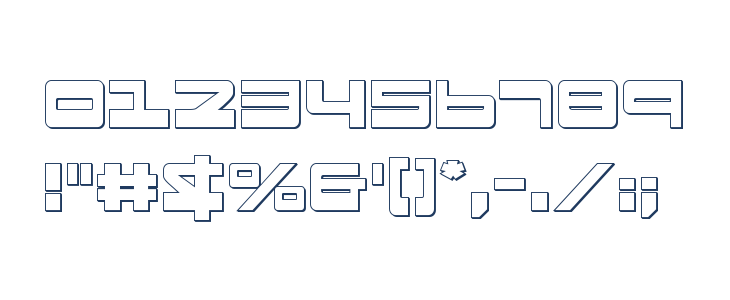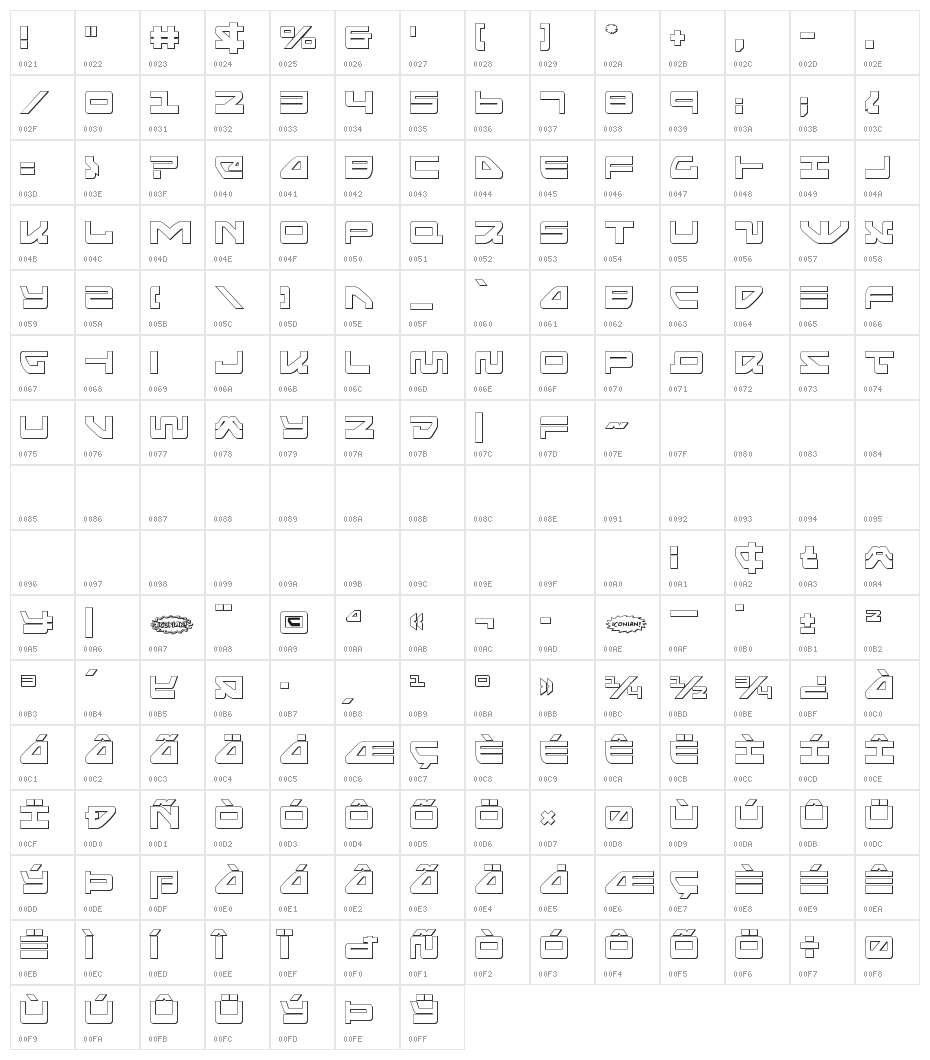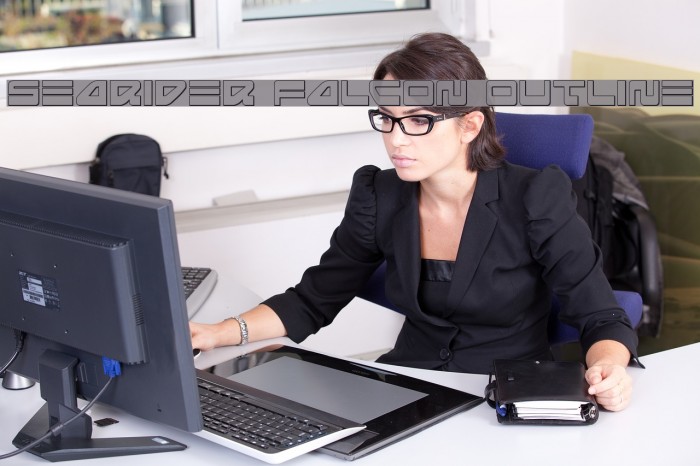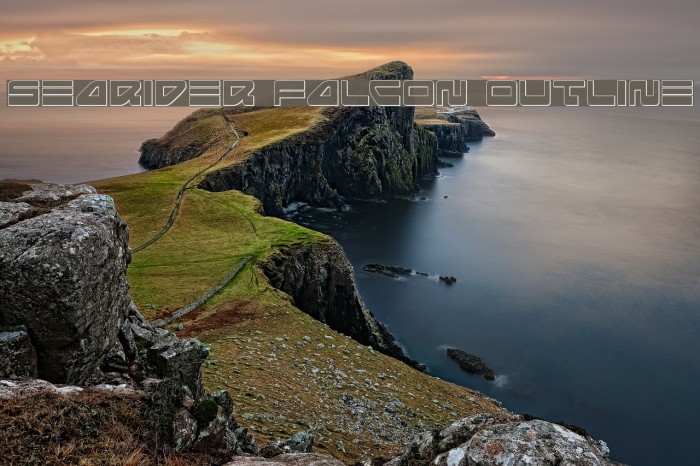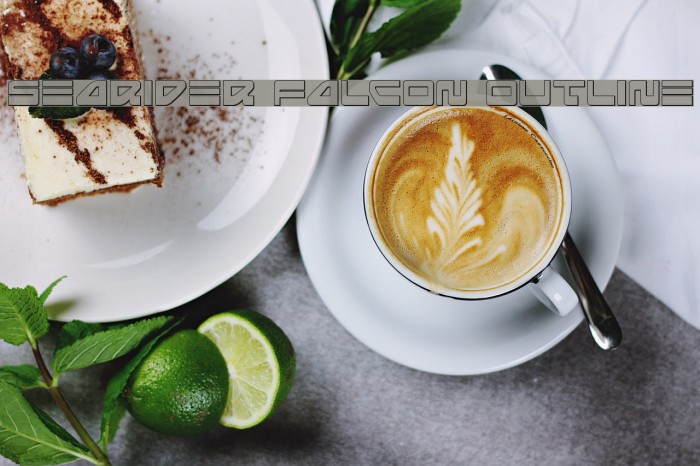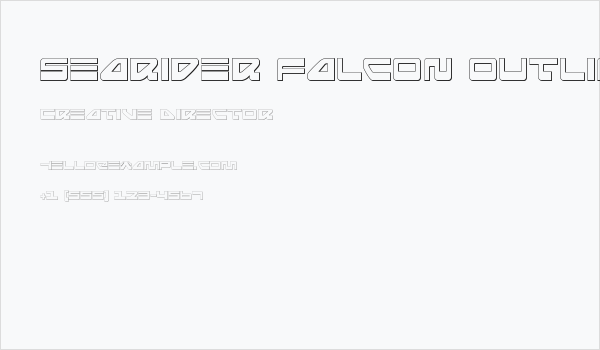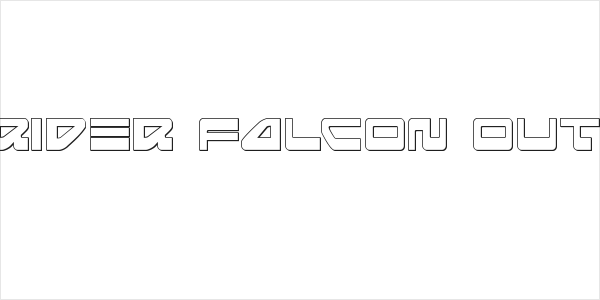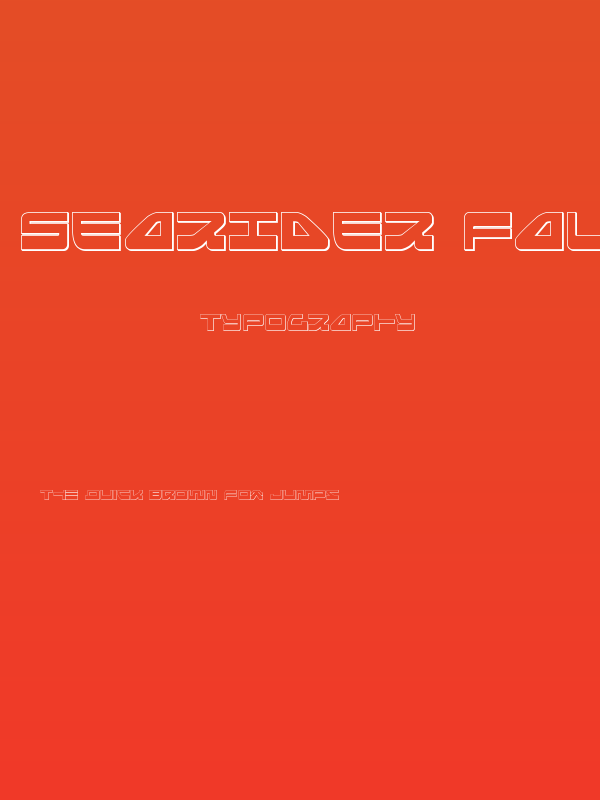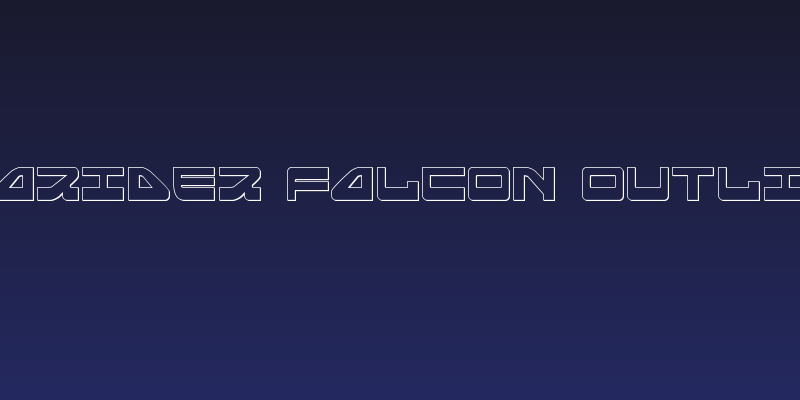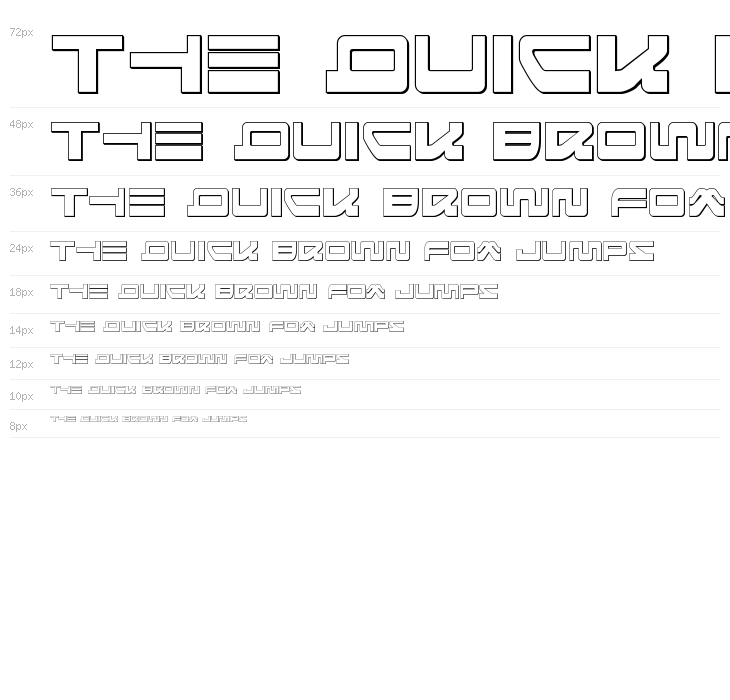
Searider Falcon Outline Font
Searider Falcon Outline Description
This font features a futuristic and geometric design with an outline style that emphasizes its bold, angular shapes. Each character is crafted with precision, showcasing a unique blend of sharp edges and smooth curves. The uppercase and lowercase letters maintain a consistent style, providing a cohesive look across the alphabet. Numbers and special characters follow the same design principles, ensuring uniformity throughout. The font's outline nature gives it a lightweight appearance while retaining a strong visual impact, making it suitable for various creative applications.